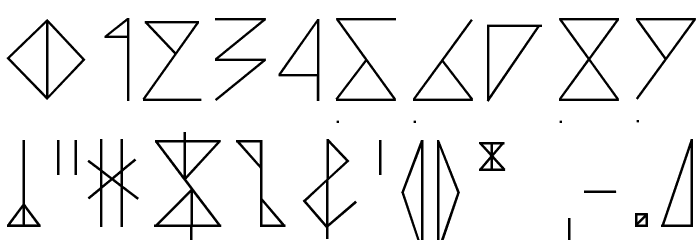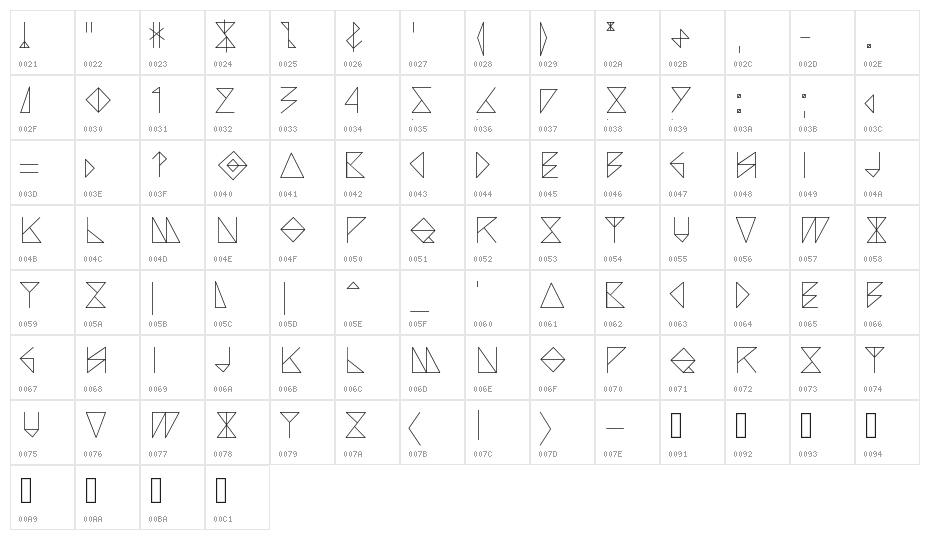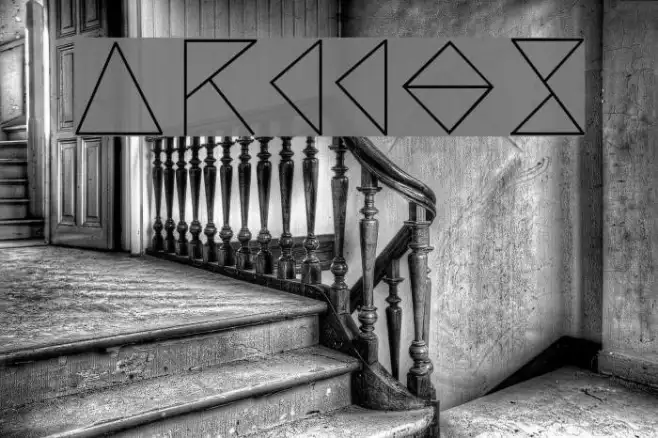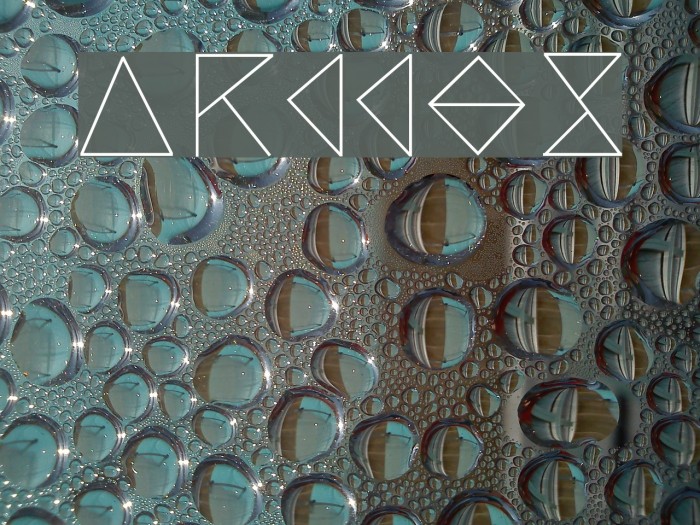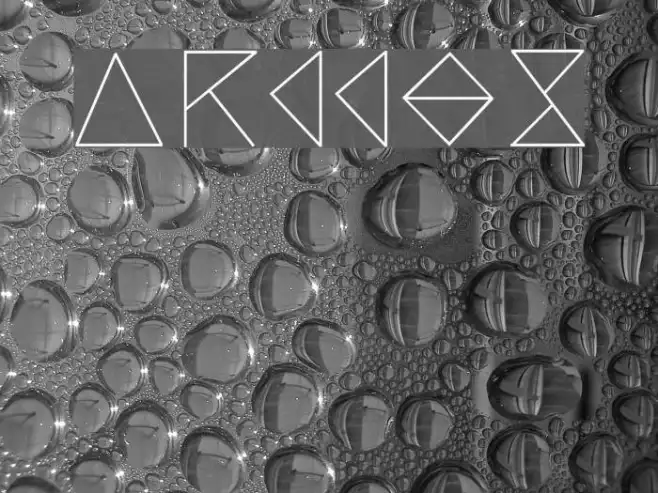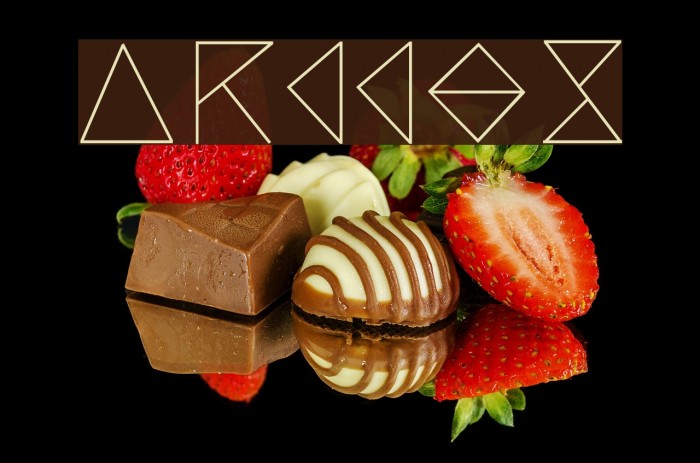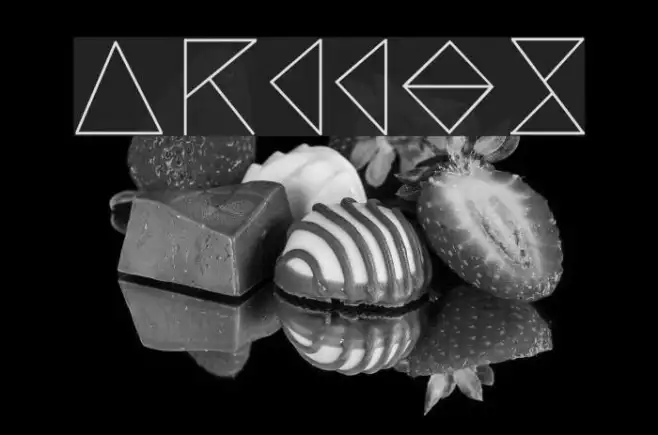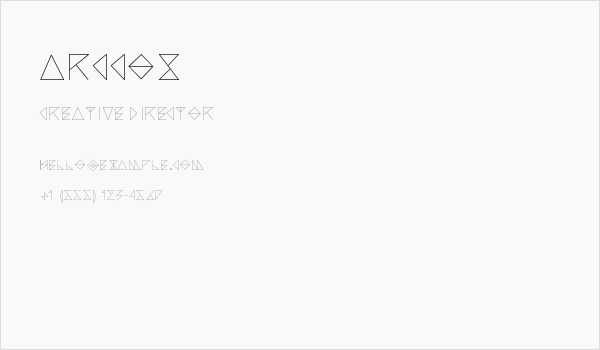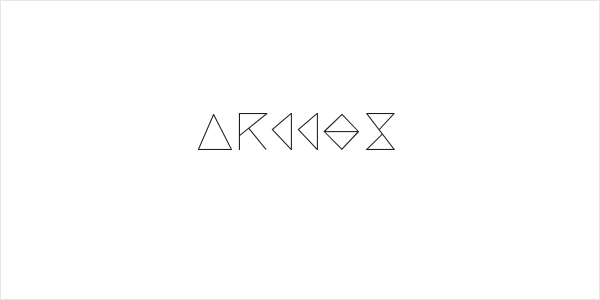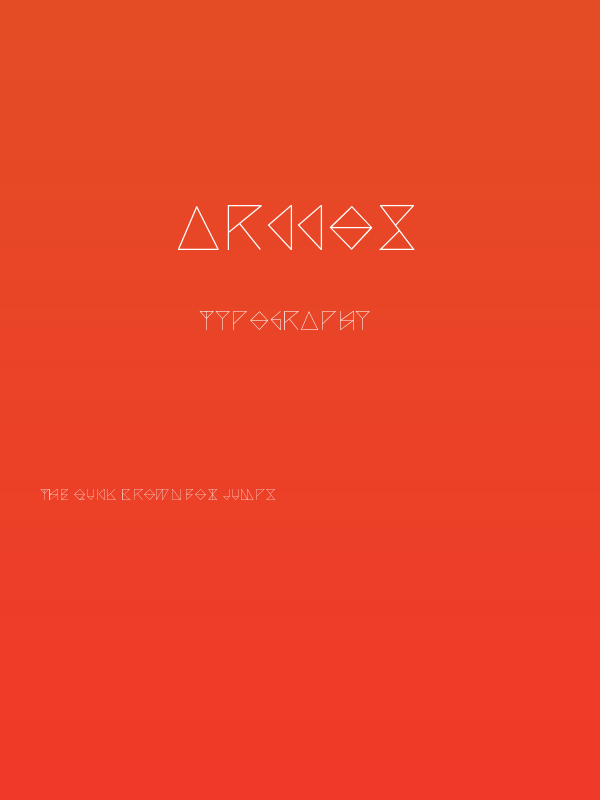
Arccos Font
Arccos Description
This font features a geometric and angular design, with each character constructed from sharp, straight lines and triangular shapes. The uppercase and lowercase letters share a consistent style, emphasizing symmetry and minimalism. Numbers and special characters maintain the same geometric aesthetic, making the font cohesive throughout. The overall appearance is reminiscent of ancient runes or futuristic scripts, offering a unique visual appeal. Its distinct style makes it stand out, suitable for projects that require a bold and unconventional typeface.
| Use Case | Logos, Posters, Titles |
| Proposed Projects | Ideal for sci-fi themed designs, video game interfaces, posters, and branding that requires a modern and edgy look. |